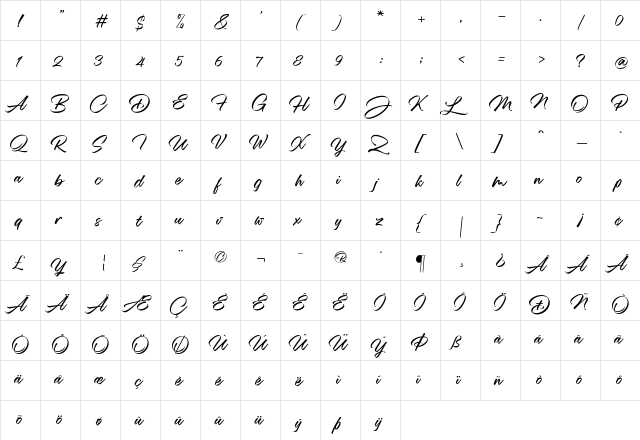
Mansions Brush Script Regular
| Foundry | JoelMaker Studio |
| Designer | JoelMaker |
Design Context for Mansions Brush Script Typeface
Mansions Brush Script brings a calligraphic fluidity to the page — its connecting strokes and expressive curves give it an unmistakably human quality.
Font Pairing: Combine Mansions Brush Script with a simple geometric sans for maximum contrast — the tension between flowing curves and clean structure is a classic typographic pairing.
Pro Tip: Pair Mansions Brush Script with a clean sans-serif for supporting text. The contrast between fluid script and geometric structure creates an elegant typographic hierarchy.